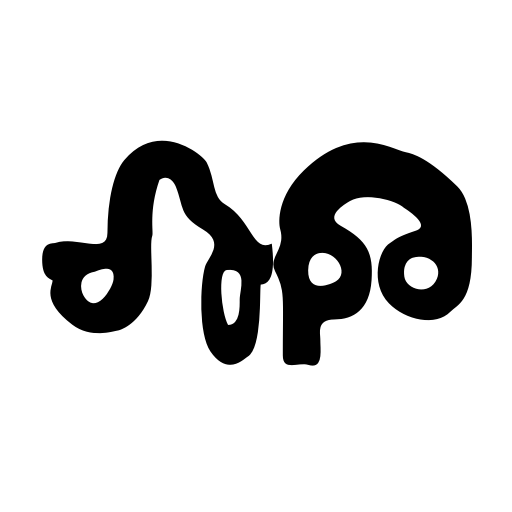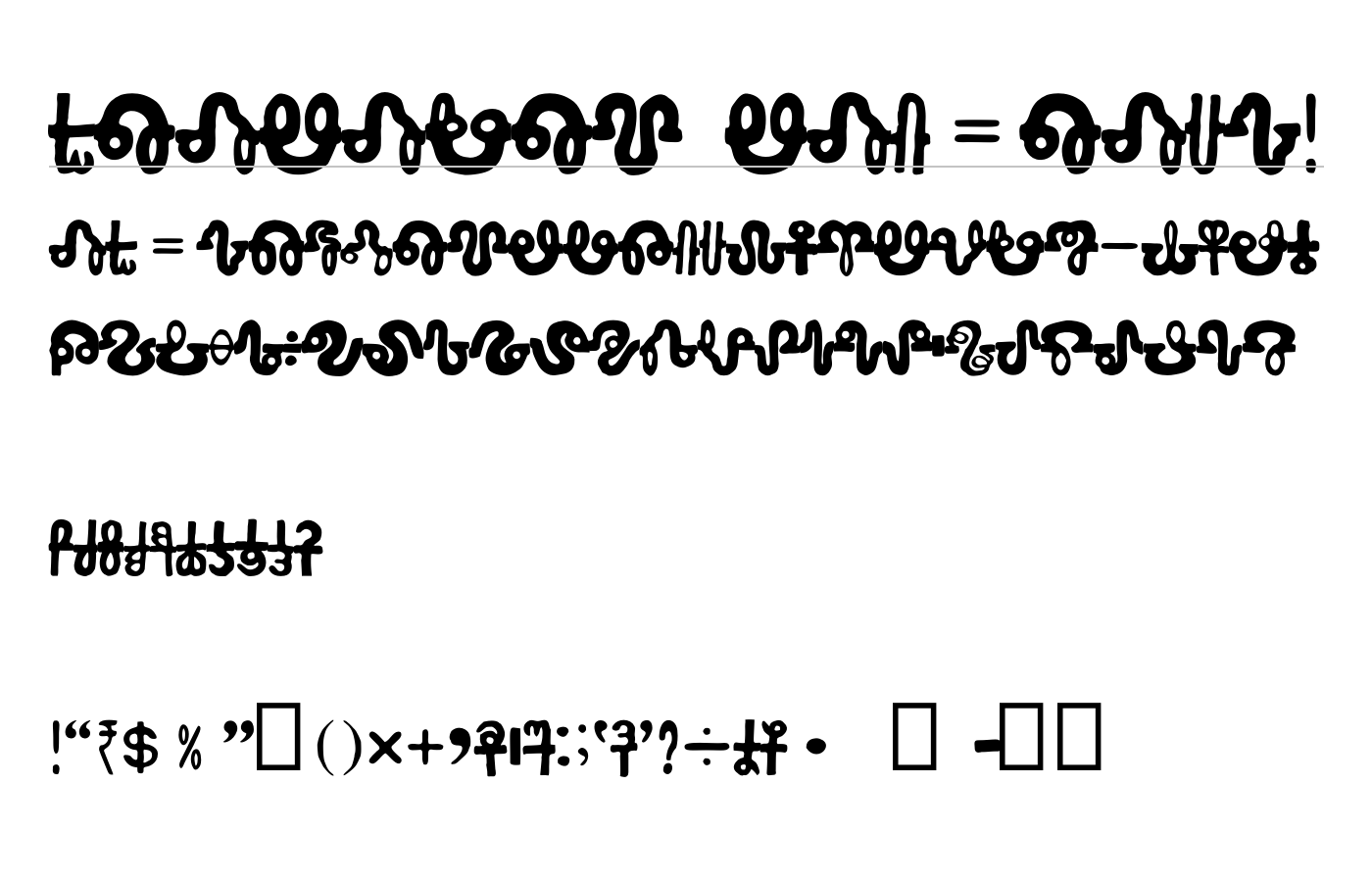
BHARATHI RAMCHAND! is a bold, playful display font with a unique handwritten style characterized by thick, wavy strokes and irregular shapes that create a lively and dynamic feel. Its quirky letterforms and high contrast in stroke width make it ideal for eye-catching headlines, creative projects, and branding that seeks a fun, unconventional personality. This font works best where a strong visual impact and expressive style are desired, such as in posters, logos, and artistic packaging.
BHARATHI RAMCHAND! Font
About BHARATHI RAMCHAND! Font
| Font family | BHARATHI RAMCHAND! Font |
| Designer | T K RAMCHAND |